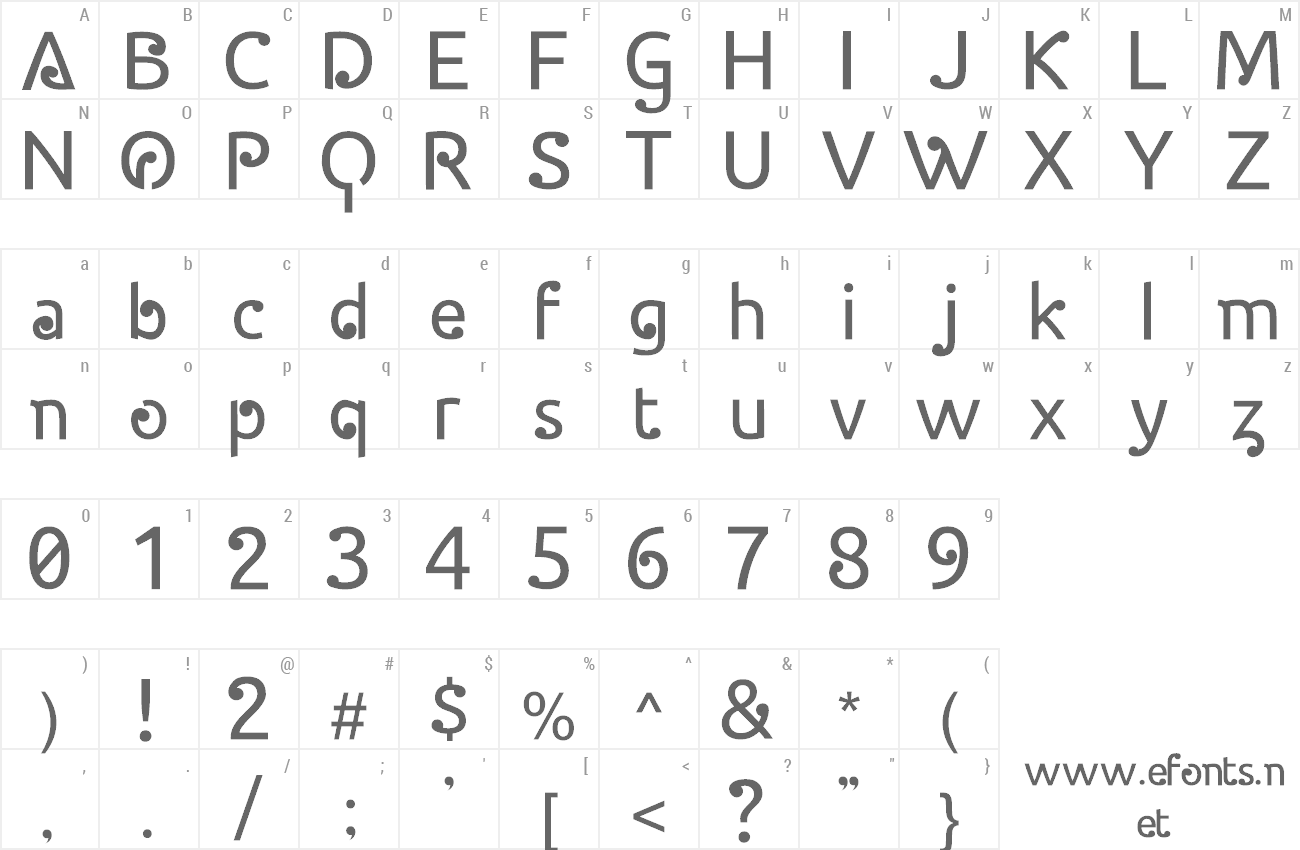
| Font name: | Halida Sans |
| Author: | Adien Gunarta |
| Note by Adien Gunarta | |
the basic font is Ubuntu Sans. I made this for my friend. Halida. She is awesome person. I made this by the inspiration of her. The swirly letters present her beauty. The sans serif presents her simplicity. Enjoy. Do commercial. Please donate me. Cheers Gunarta |